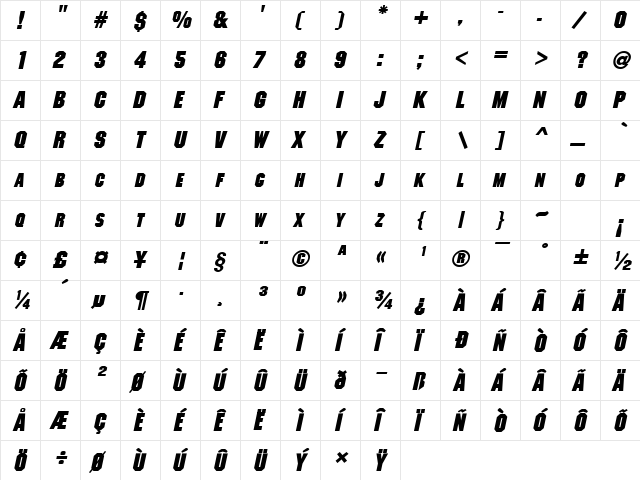
MetalEncasement BoldItalic Font Preview
MetalEncasement BoldItalic
Design Context for MetalEncasement Typeface
MetalEncasement takes a measured approach to typography — its balanced proportions and neutral character make it a reliable workhorse for both digital and print work. The dynamic lean of this cut emphasises speed and emphasis in any layout. The heavy weight commands attention and anchors typographic hierarchies.
Pro Tip: Use MetalEncasement for emphasis, pull quotes, and subheadings where its slanted energy can add rhythm to the layout.